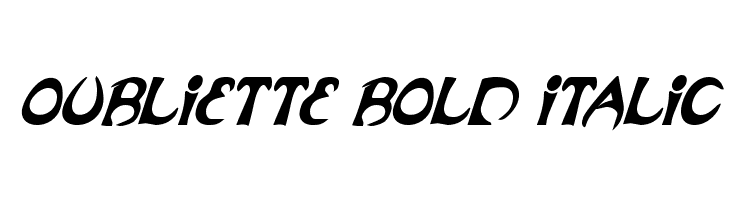
A playful, hand-drawn font with rounded, friendly characters.
A bold, star-patterned decorative font with a playful and patriotic style.
A bold, decorative font with high contrast and dynamic curves.
A lively, handwritten font with dynamic strokes and a playful style.
An elegant, cursive font with a fluid, handwritten style.
A decorative, hand-drawn font with bold, sweeping strokes and intricate details.
A dynamic brush script font with flowing, cursive letterforms and medium contrast.
A collection of intricate ornamental and decorative elements.
A bold, geometric font with a futuristic and industrial design.
A playful and elegant handwritten script font with flowing curves.
设计师偏爱 Happy Little Soul, New Fathers Flag, Oubliette, KinemonDemo and WinterfelliaFreePersonalUse,因为其造型干净、适用范围广—— 从品牌识别到落地页、海报都能胜任。